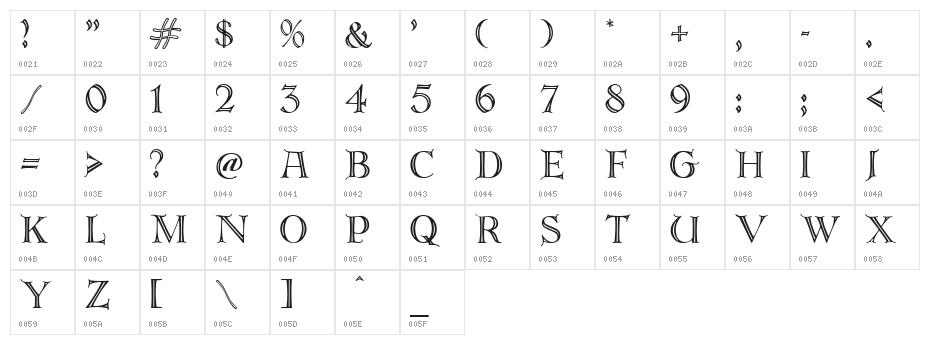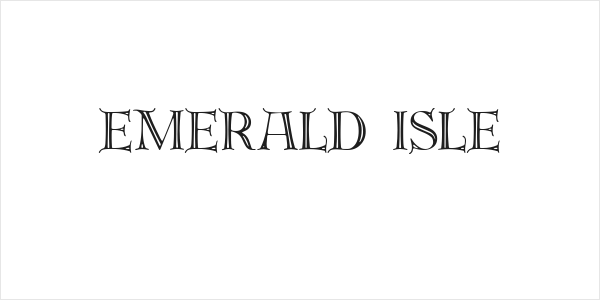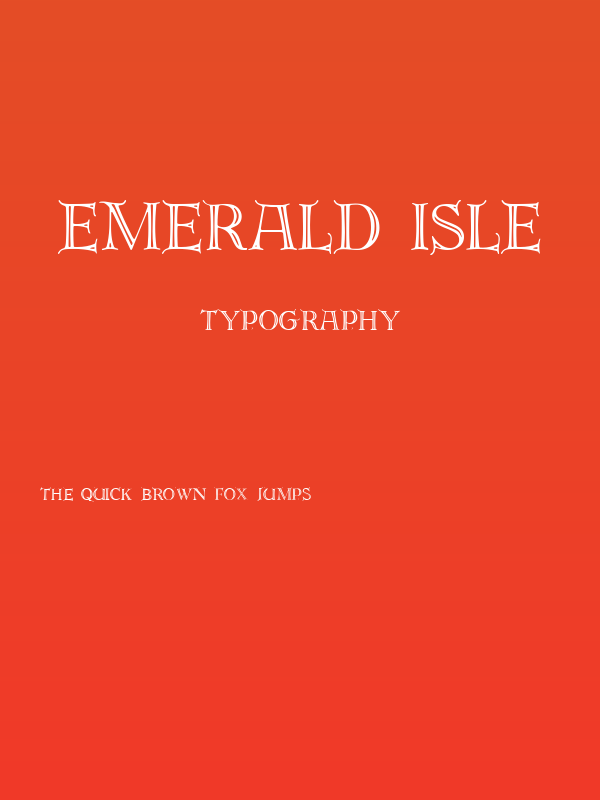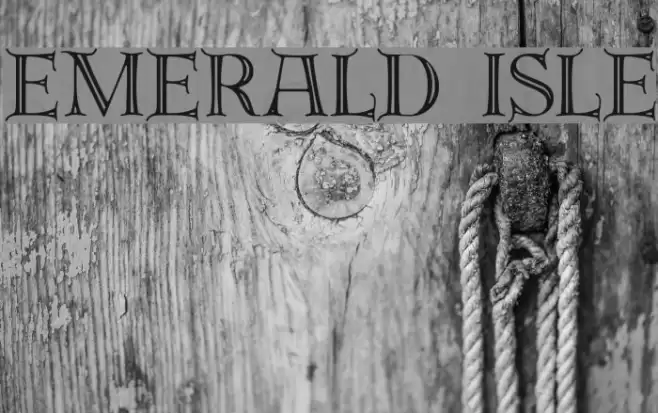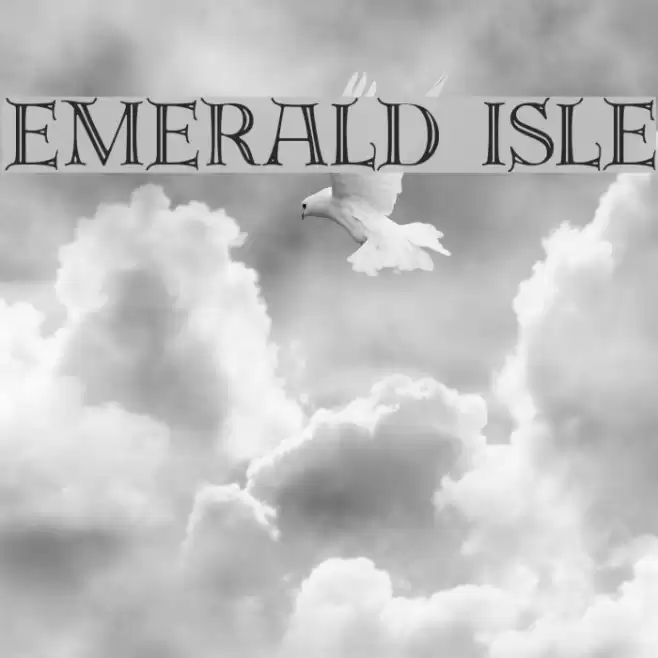
Emerald Isle Font
| Proiecte propuse | Ideal for use in fantasy-themed designs, book covers, posters, and branding that requires a historical or elegant touch. |